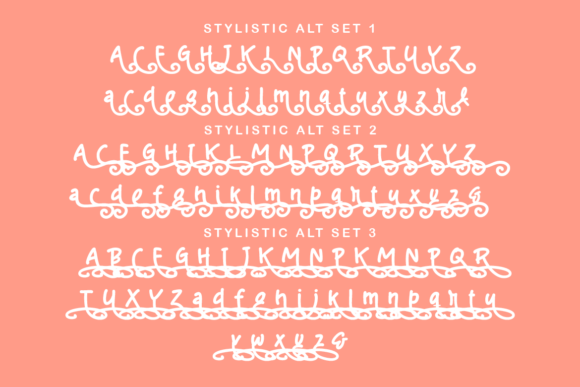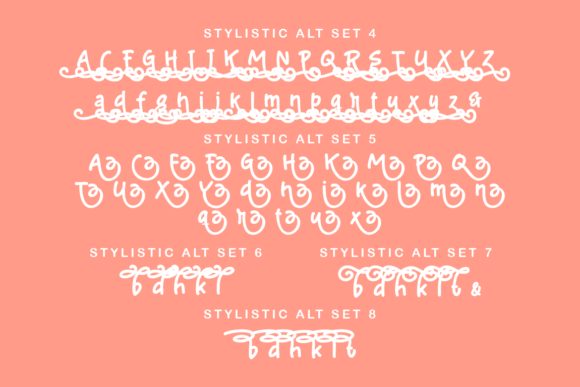
About Drackorie Font
Drackorie is a chic and distinct handwritten font that exudes elegance and class. This font was particularly crafted for those who need a beautiful and refreshing look to their designs.